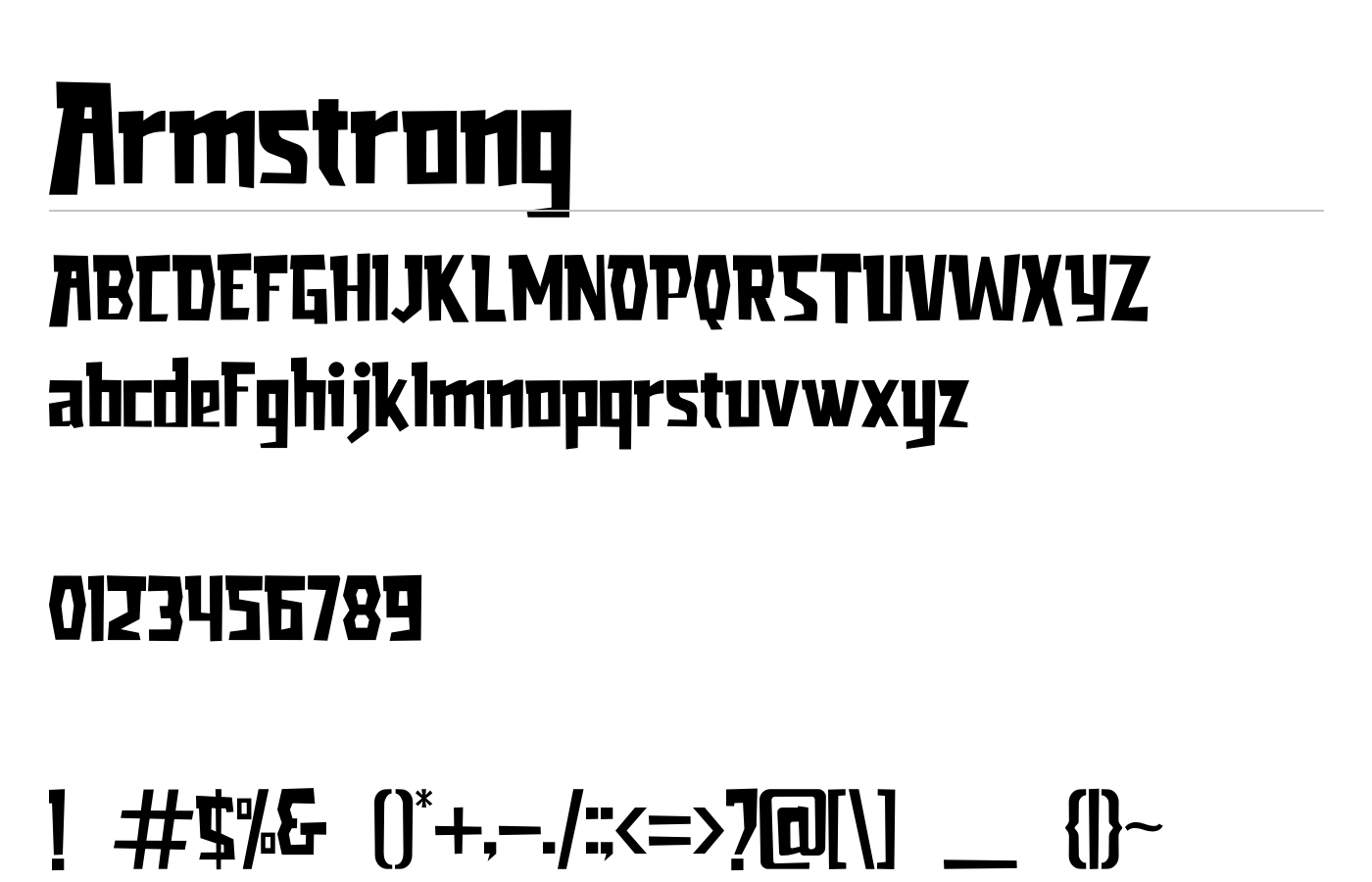
Armstrong is a bold, condensed sans-serif font with a striking, slightly irregular geometric style that gives it a strong, edgy character. Its tall x-height and tight letter spacing make it highly impactful for headlines or branding where a modern, assertive, and unconventional feel is desired. This font works well for distinctive logos, posters, or any design needing a powerful and urban personality.
Armstrong Font
About Armstrong Font